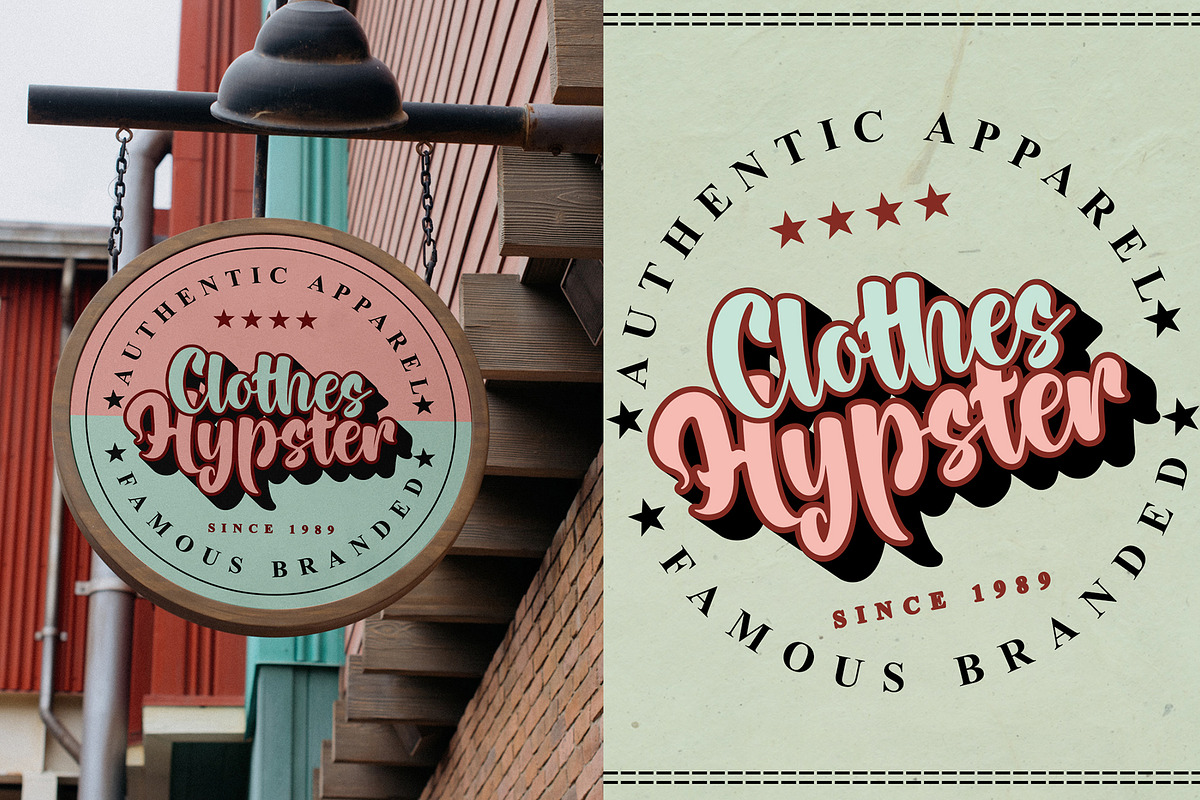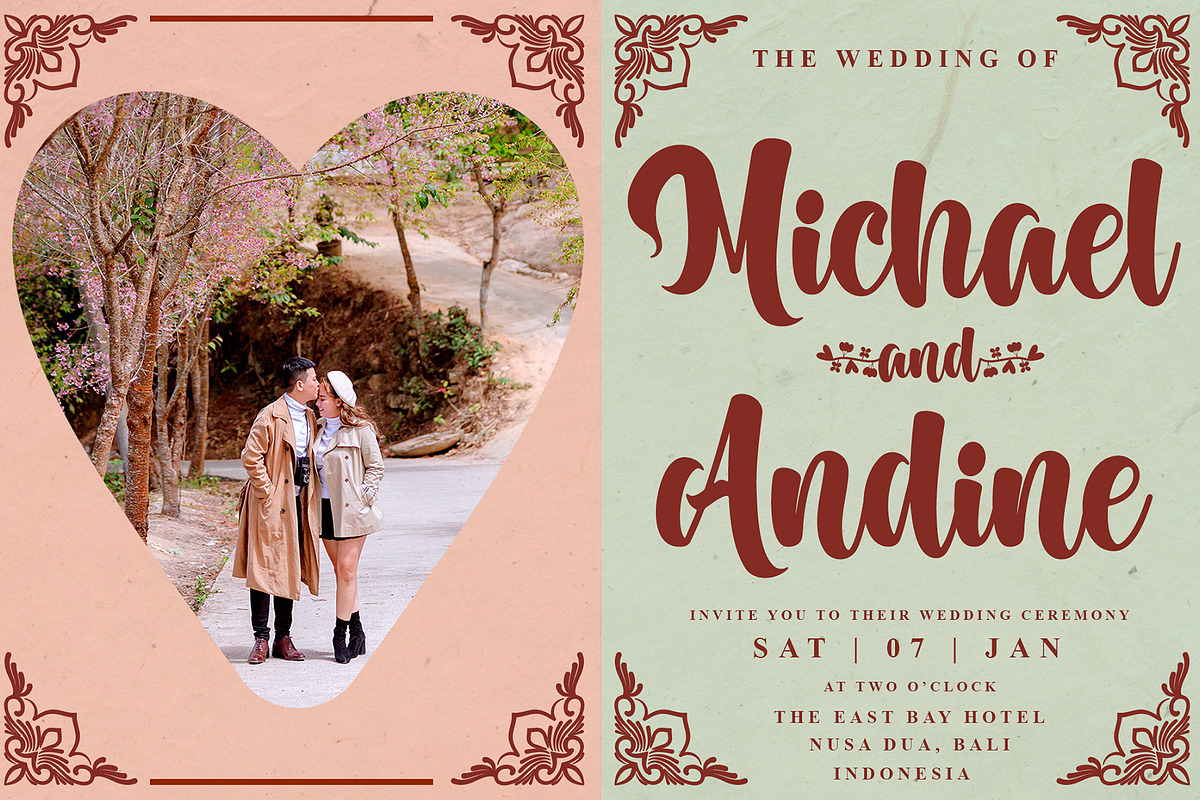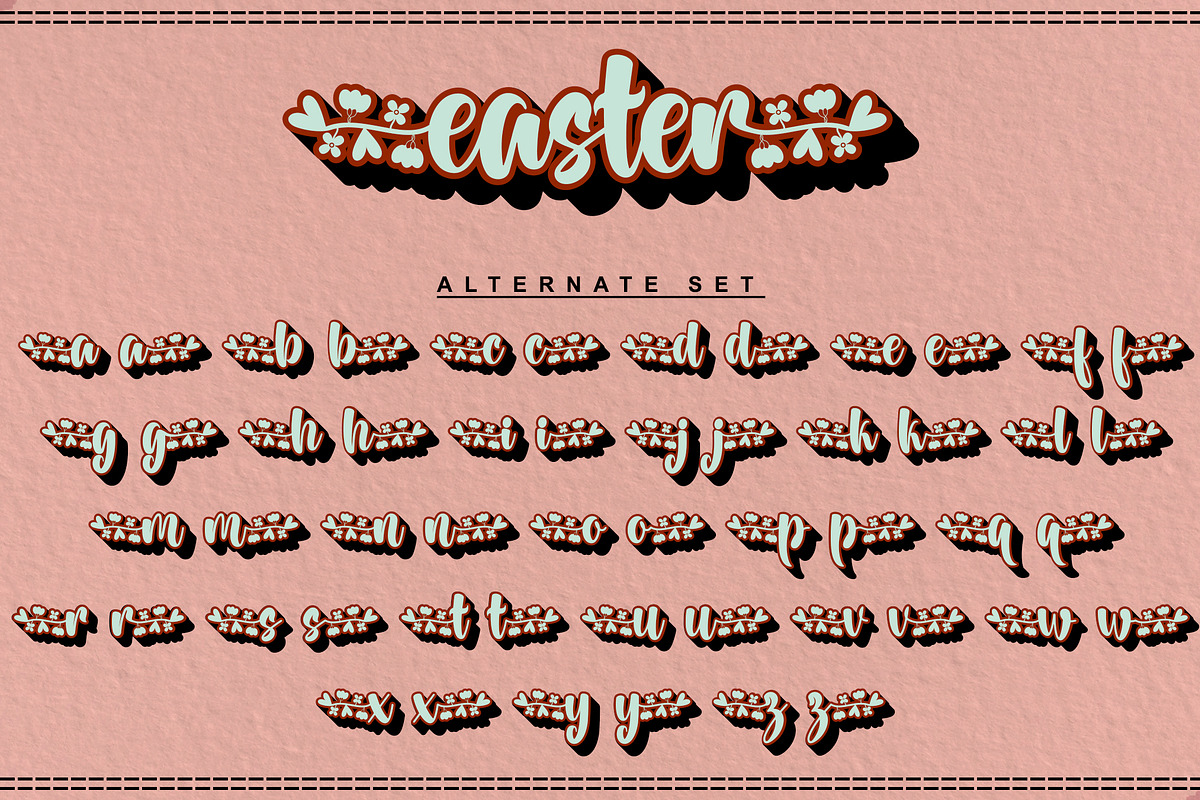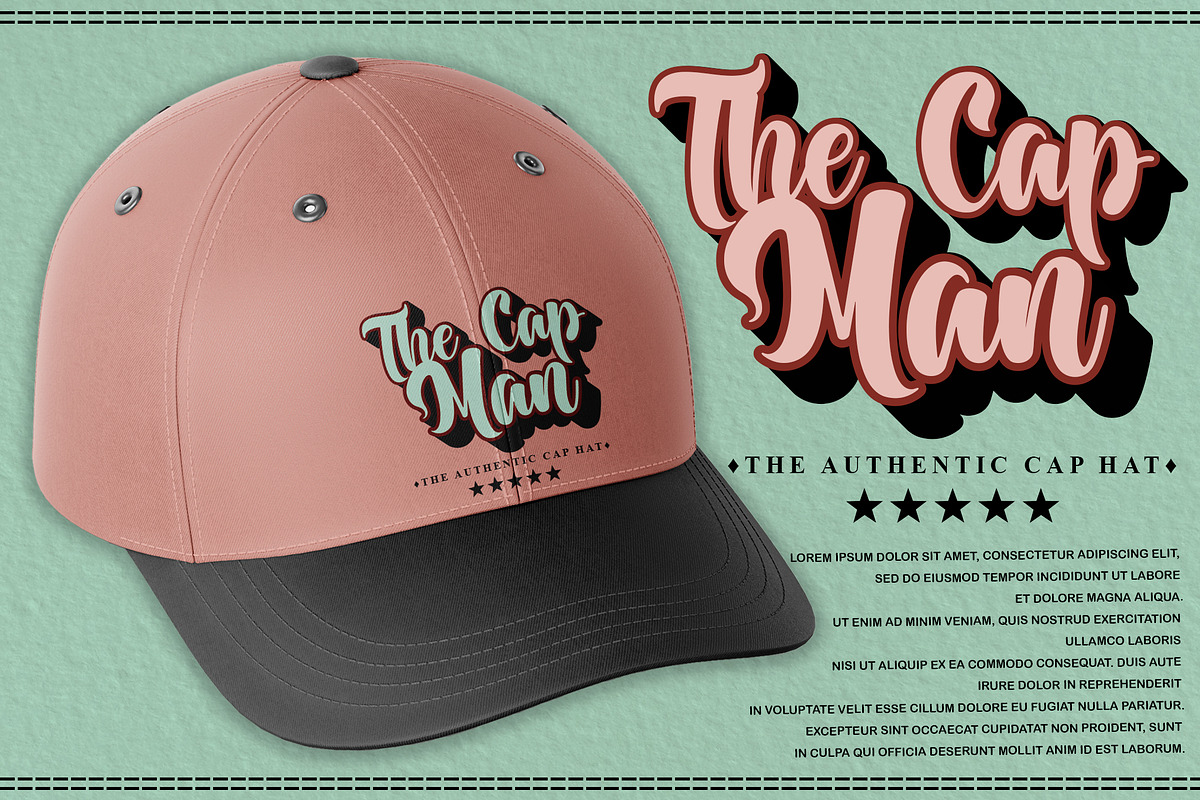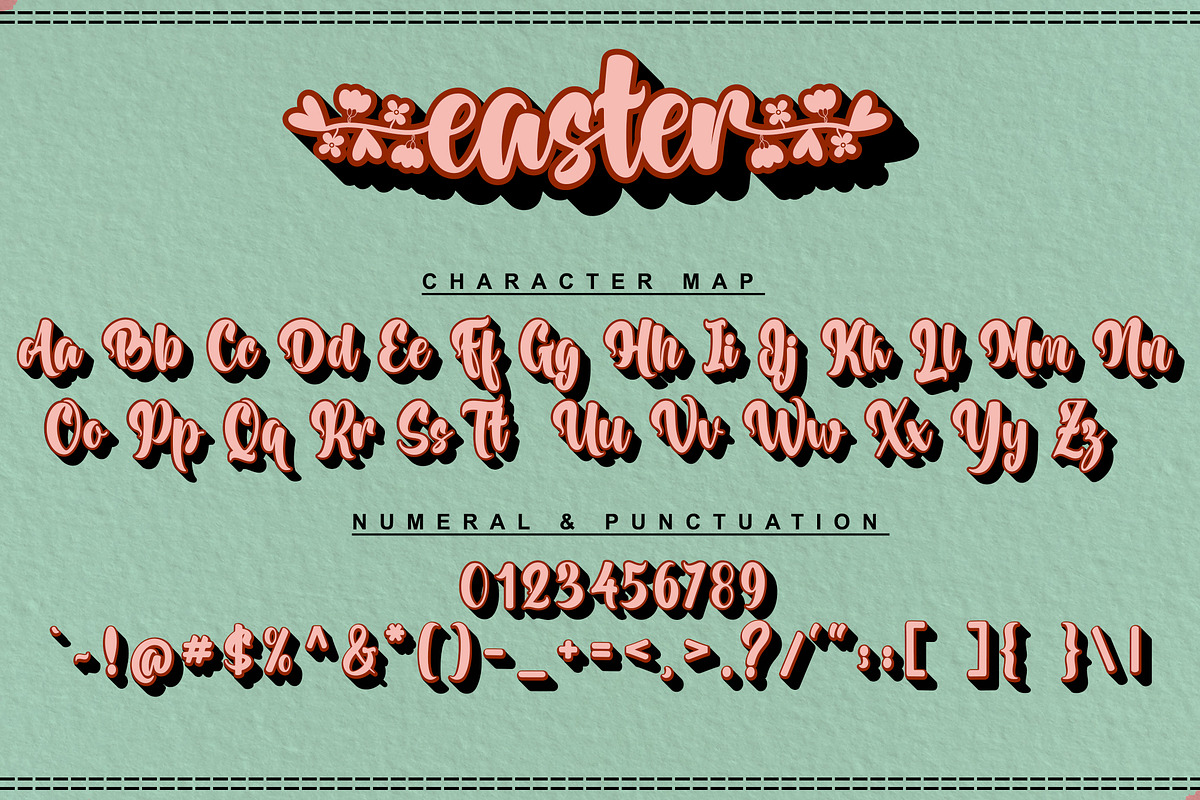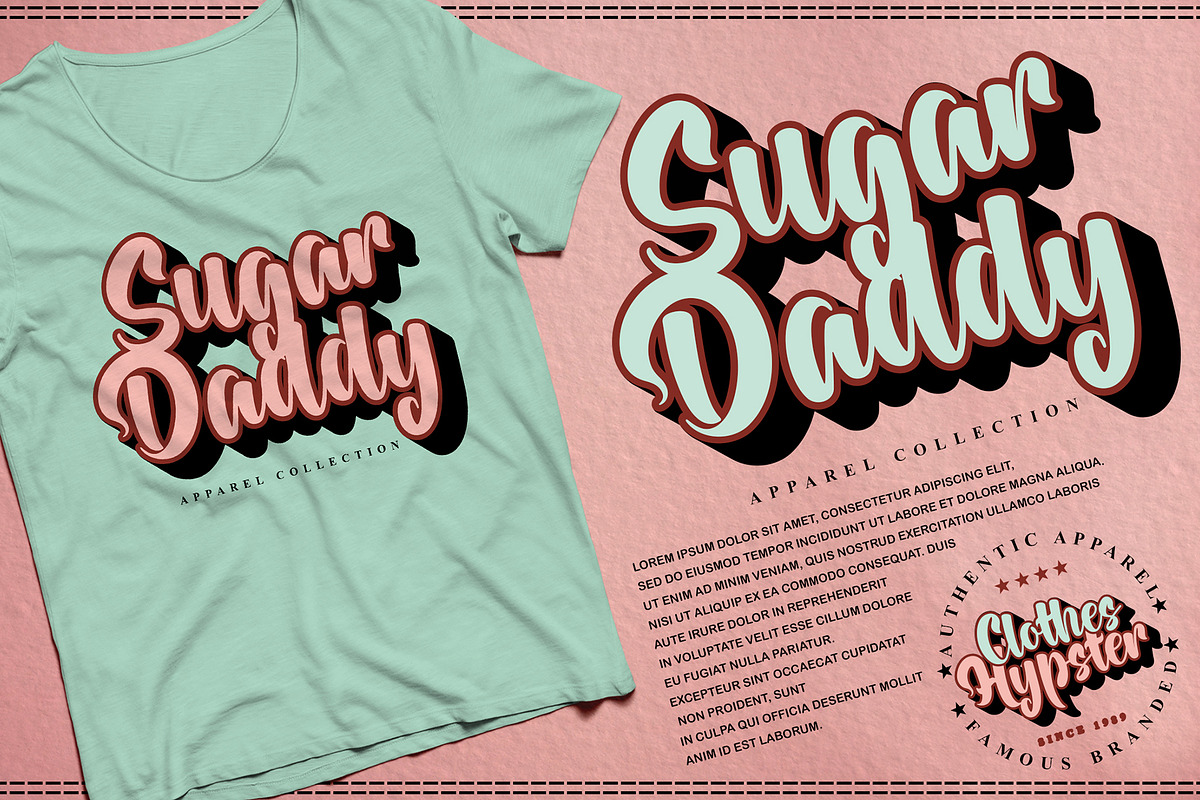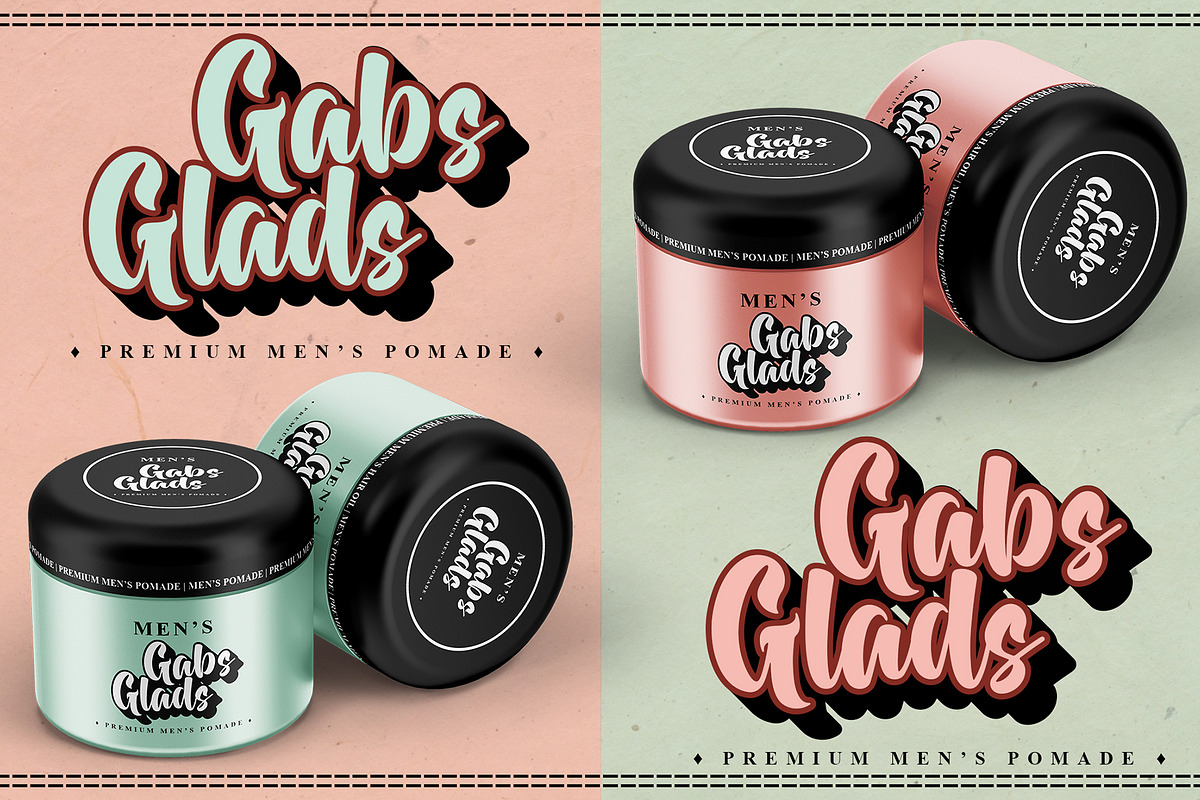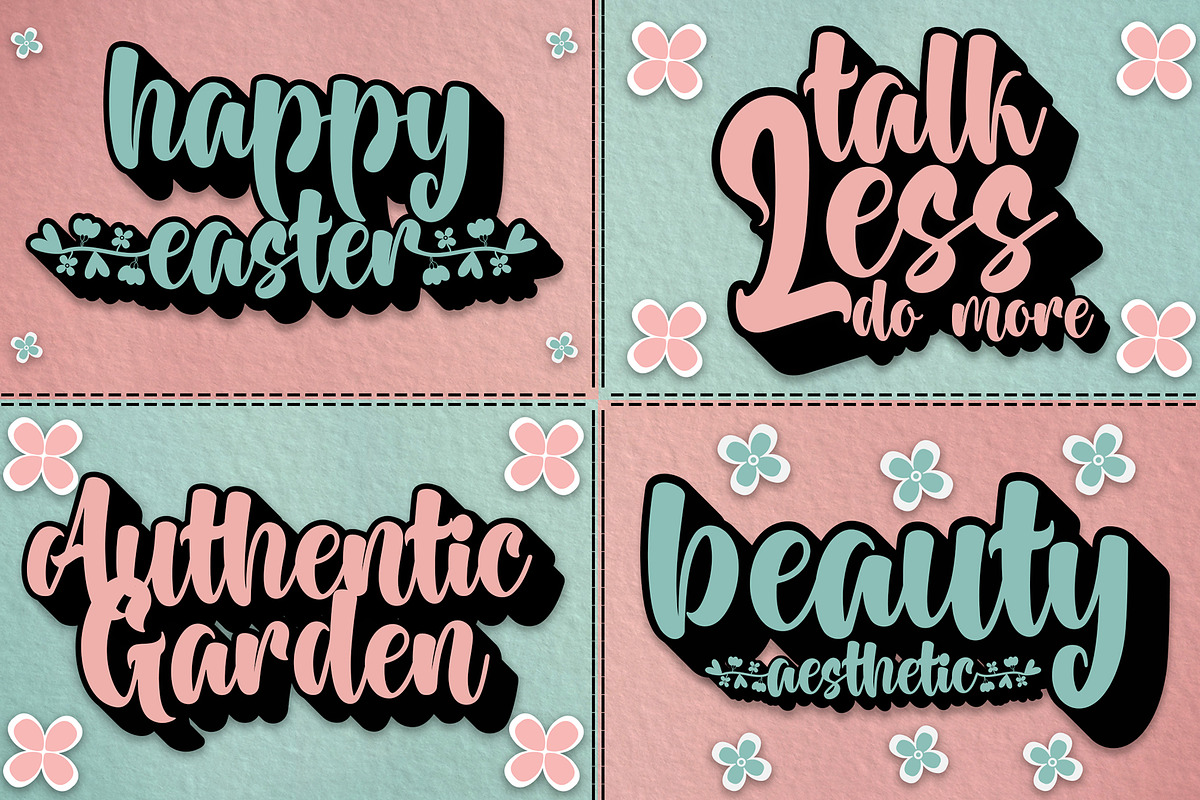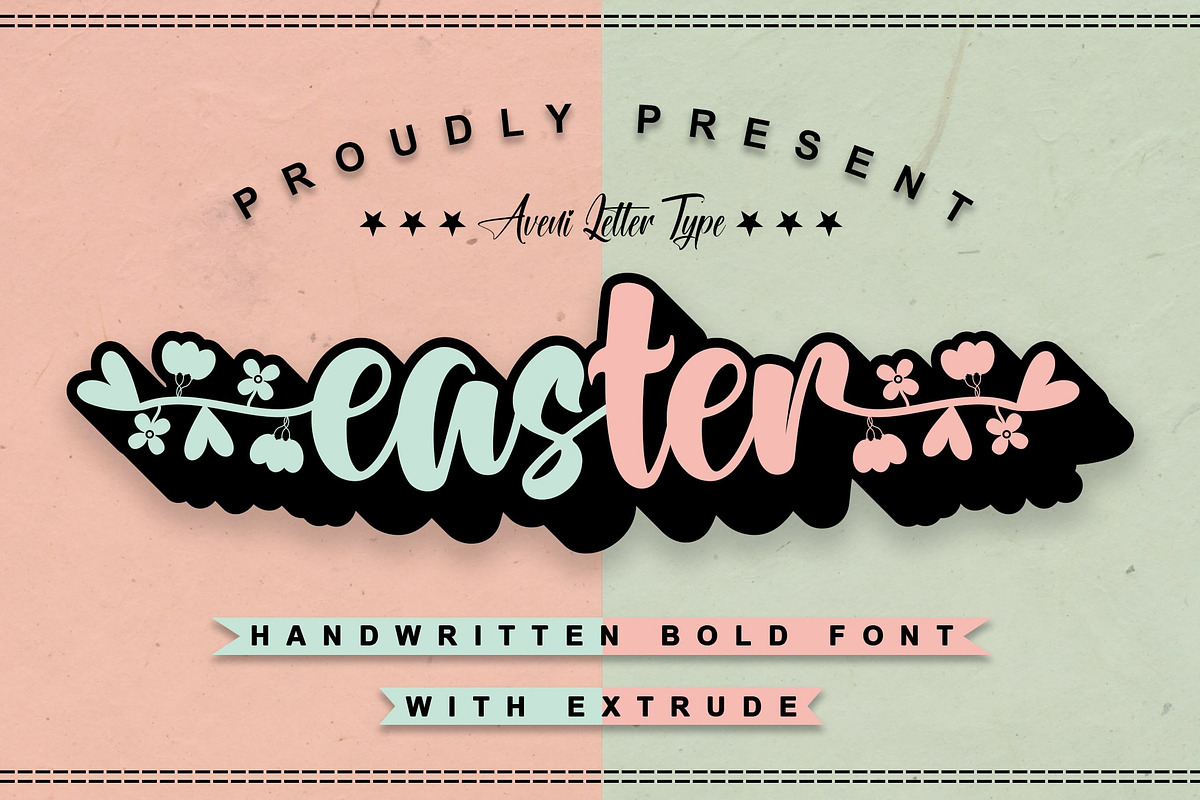
Easter | Handwritten Bold Font
Hi Guys, This is Easter Font, I was born with a bold handwritten font but still has an elegant style and very neat kerning. This font is equipped with alternative font families from bold to outline, and extrude and is very easy to use. This font is very suitable for many projects, for example, it can be used for branding various product packaging, logotypes, wedding invitations, product packaging, headers, posters, merchandise, clothing branding, social media & greeting cards, and much more!
Font Feature :
- Ligature & Alternate
- Double Extrude